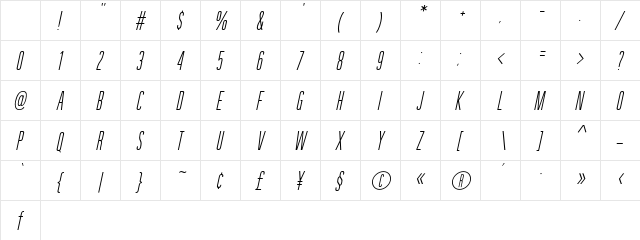
Guilder Free Light Italic Free Font
Guilder Free Light Italic
Foundry: Tyler Finck @sursly
Designer: Tyler Finck
Design Context for Guilder Free
Guilder Free is a composed and adaptable typeface that performs quietly and consistently across a wide range of design contexts. The slanted form adds forward momentum and visual energy. Its slender proportions lend an understated elegance to any composition.